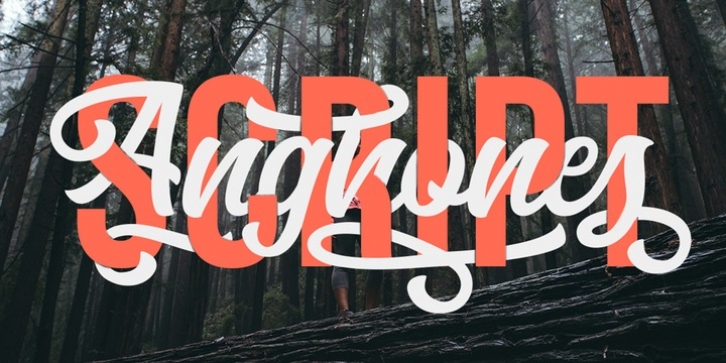
Anghones Script is a simple typeface - easy to read and comfortable to wear! You can use them as logos, badges, packaging, headlines, posters, t-shirts / clothing, greeting cards, business cards, and wedding invitations and more. The flowing characters are ideal for creating interesting messages to your taste.
Mix and match a group of alternate characters to fit your project. It will be more interesting if you add swashes! Alternate characters in this font are divided into several OpenType features such as Stylistic Alternates, Ligatures and Ligature Alternates.